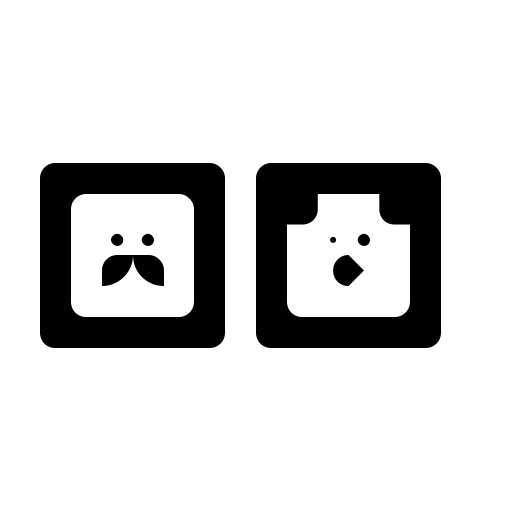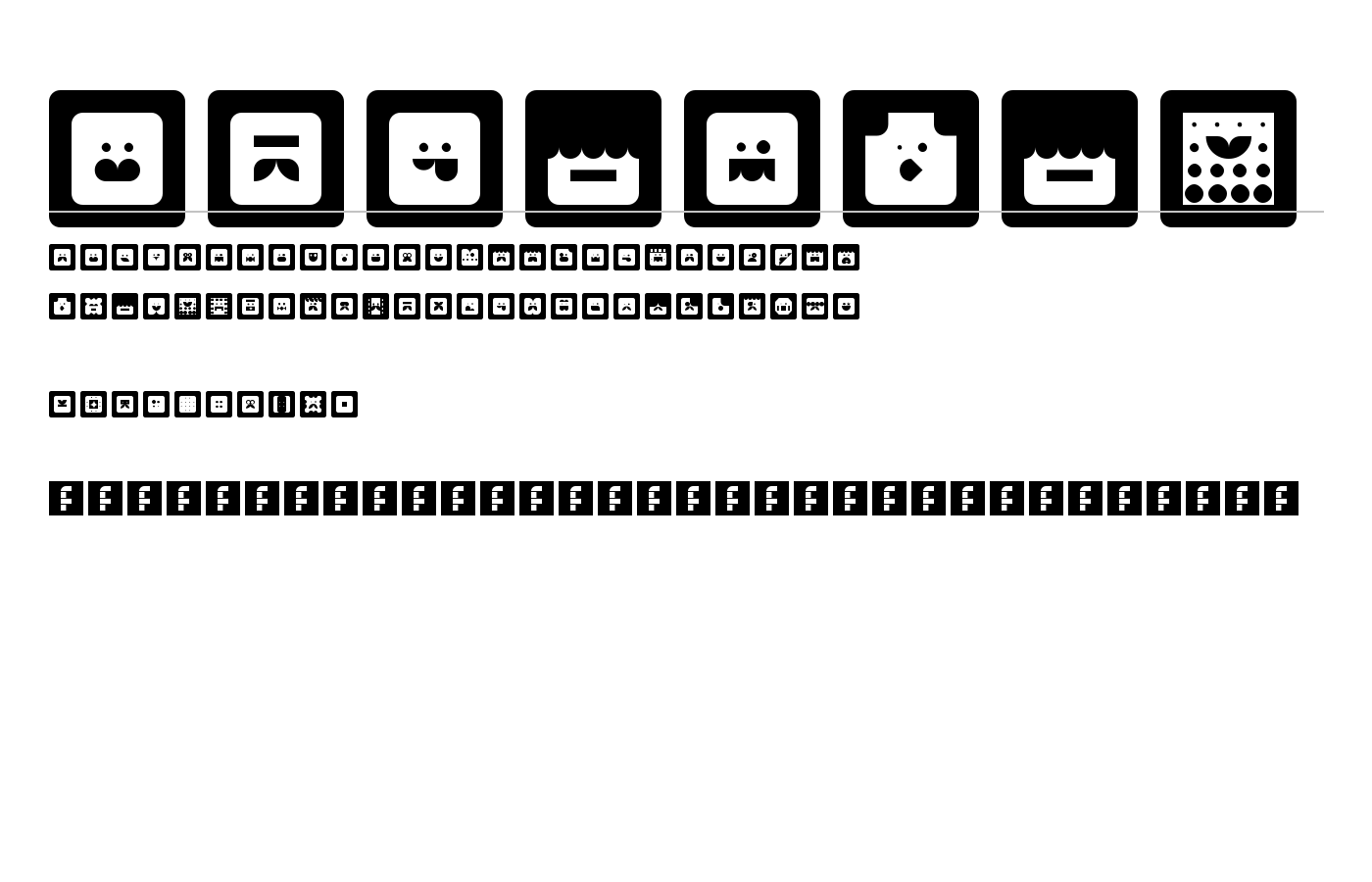
BlocFace is a playful, highly stylized display font featuring blocky, square shapes with charming, cartoon-like facial elements inside each glyph. Its bold, geometric design and whimsical expressions give it a fun, friendly personality perfect for creative projects, children’s media, and branding that wants to convey humor and approachability. This font works best in logos, posters, and playful headlines where its unique character can shine and attract attention.
BlocFace Font
About BlocFace Font